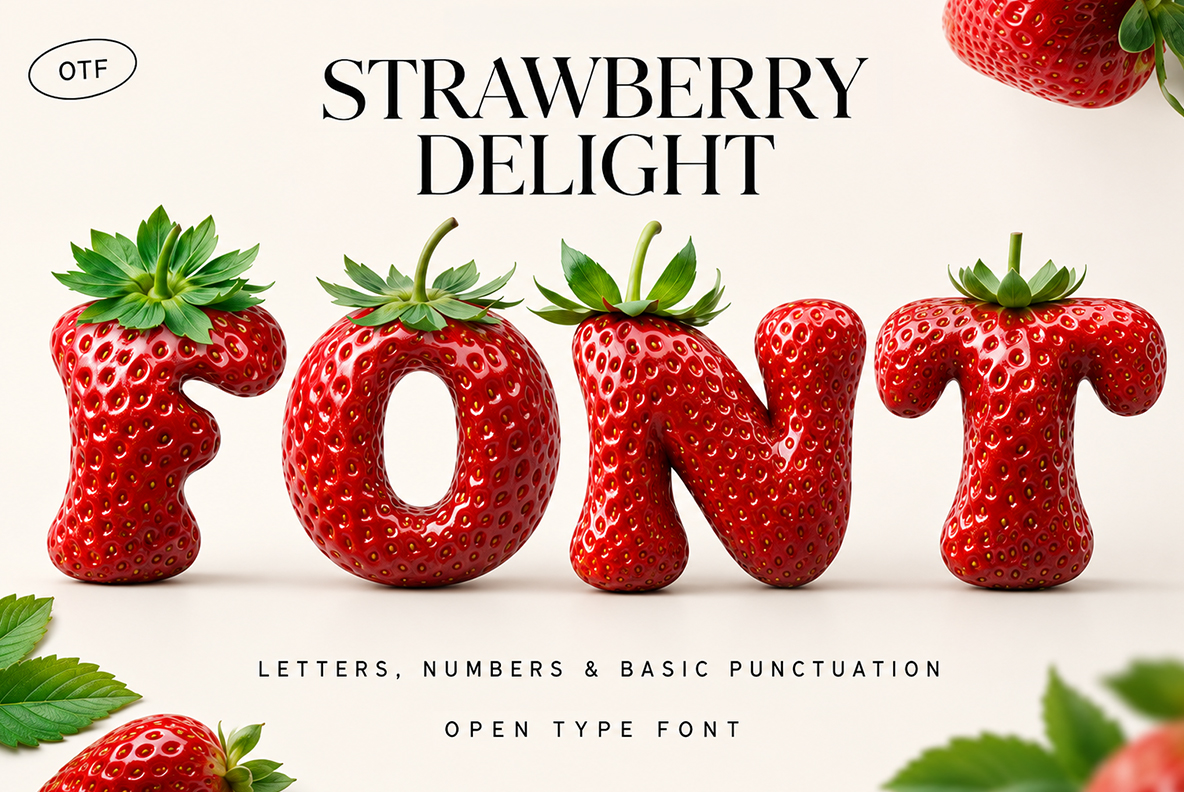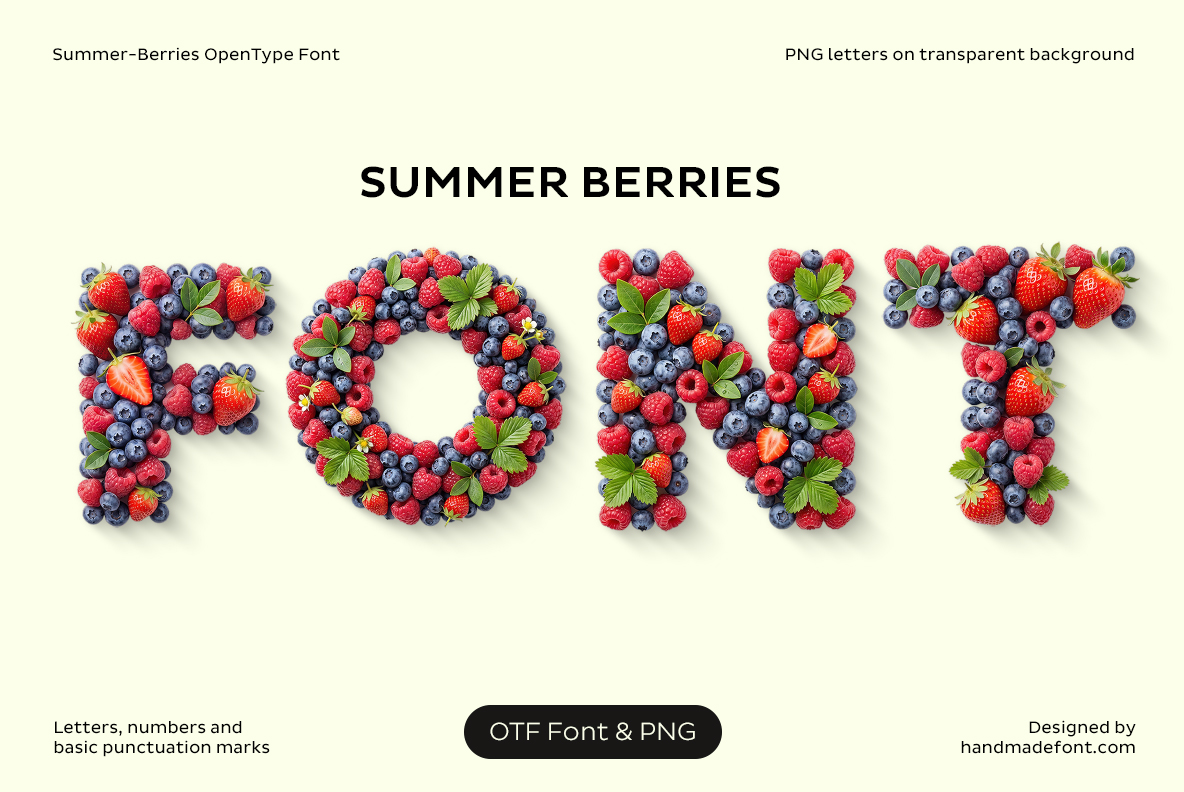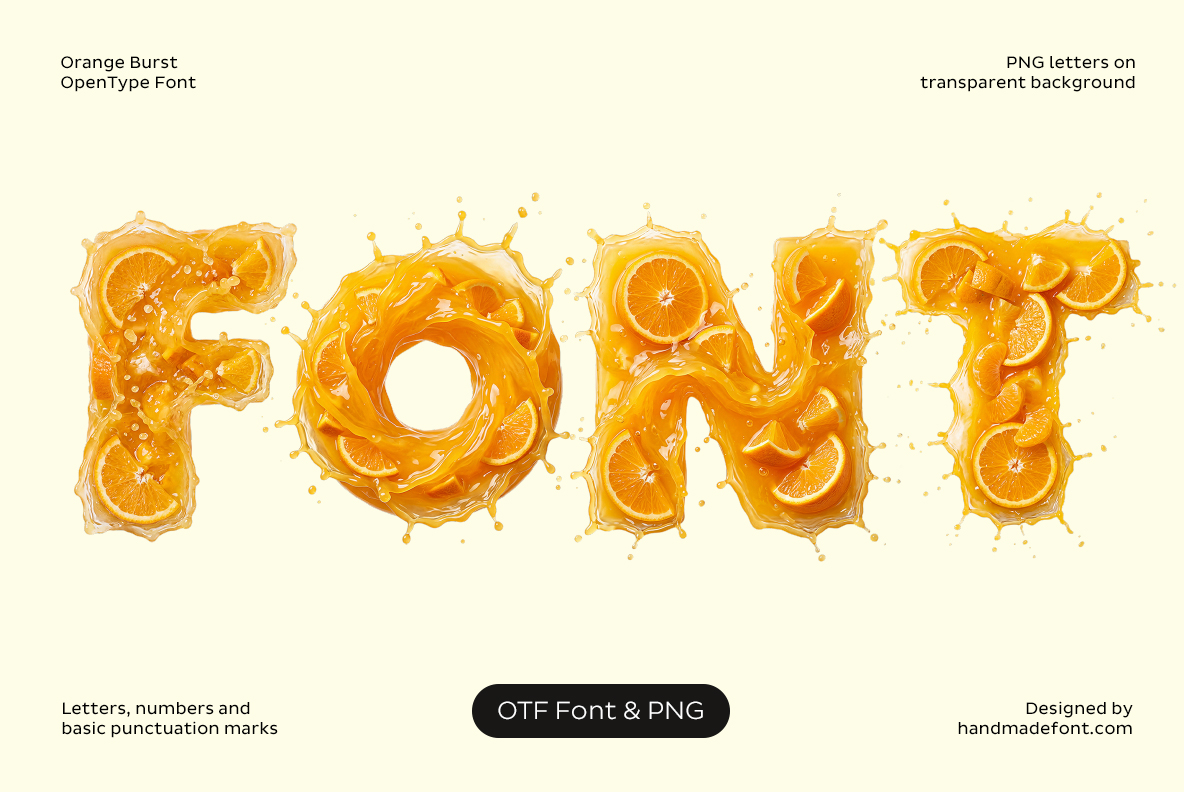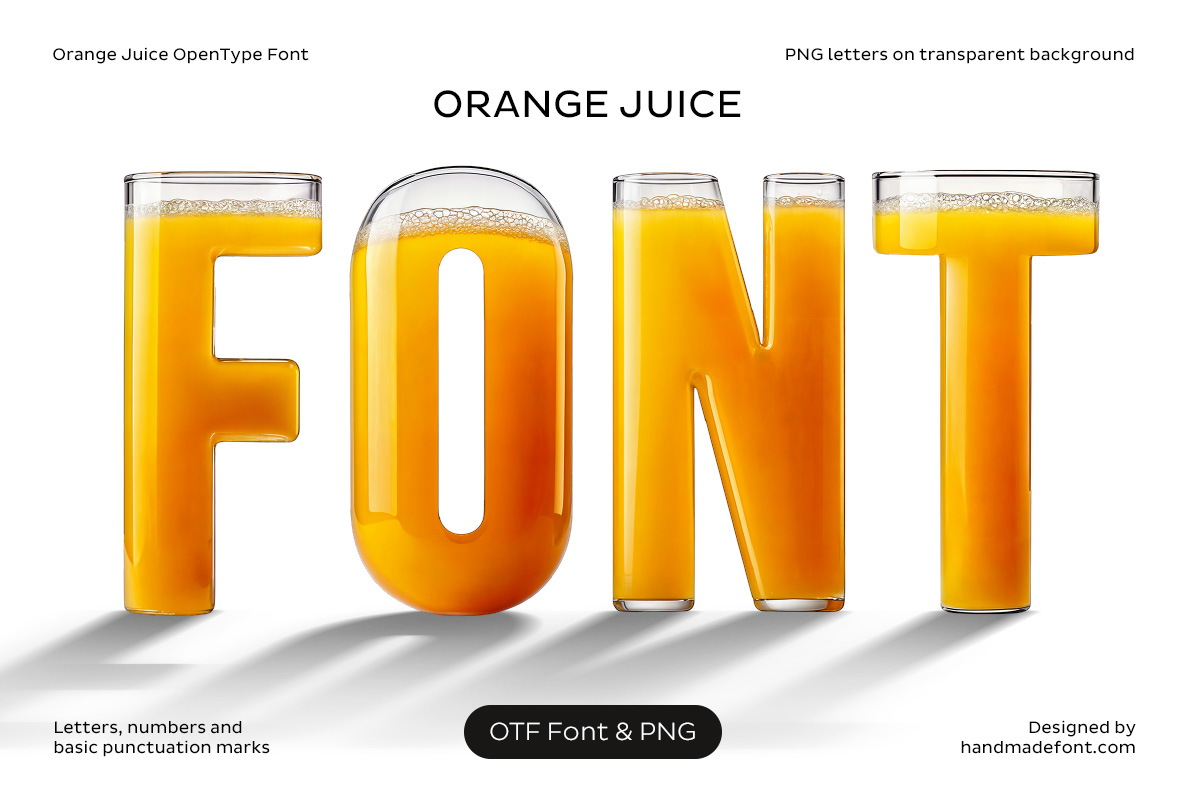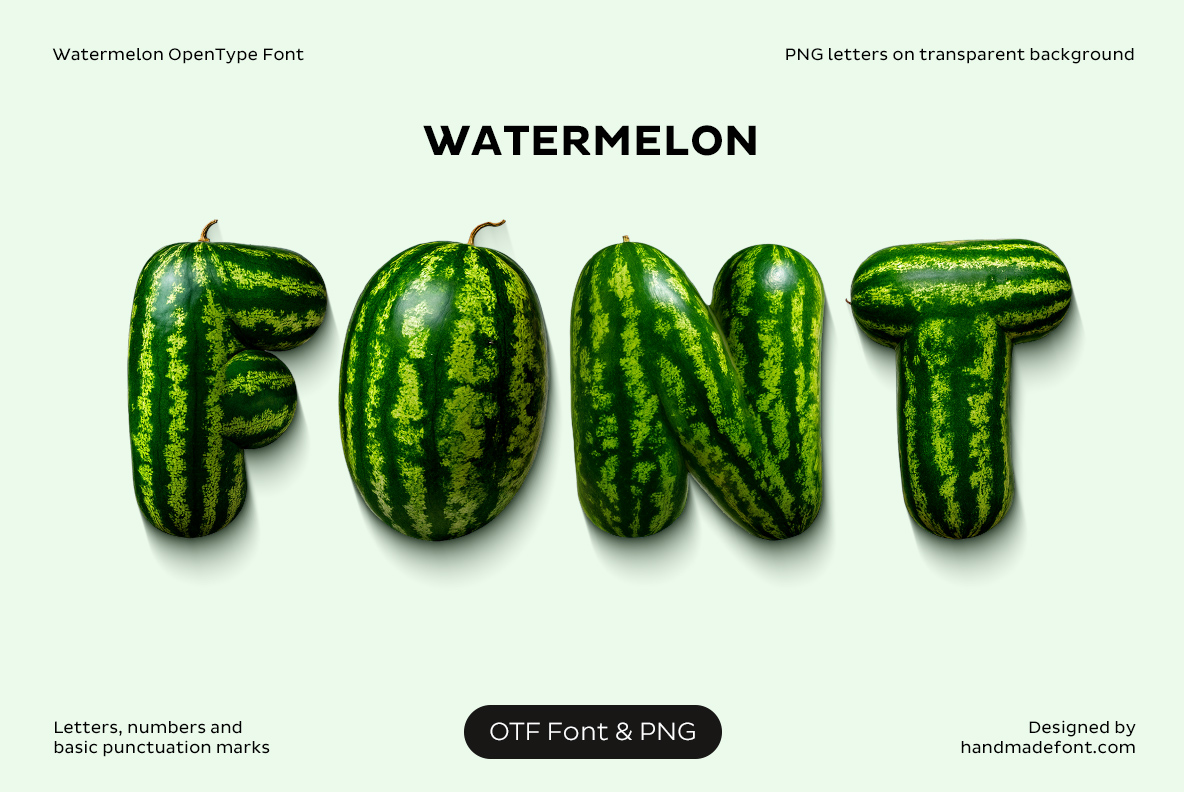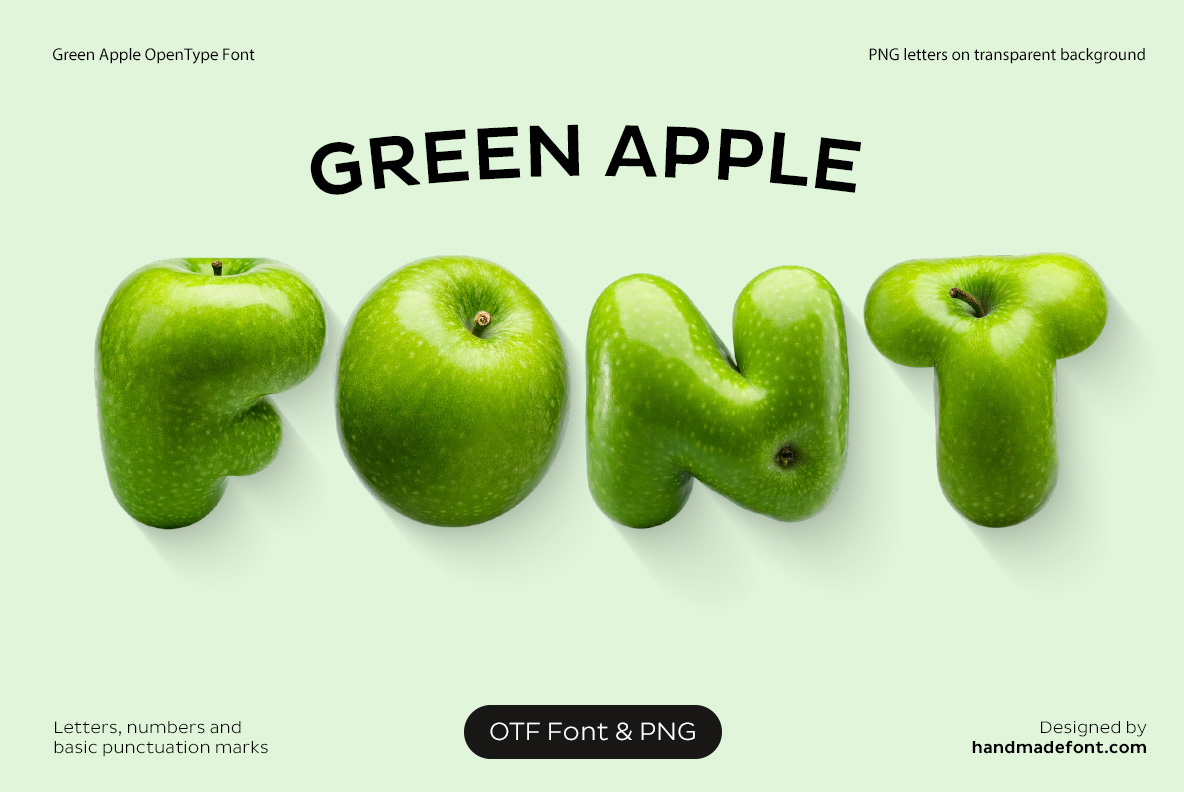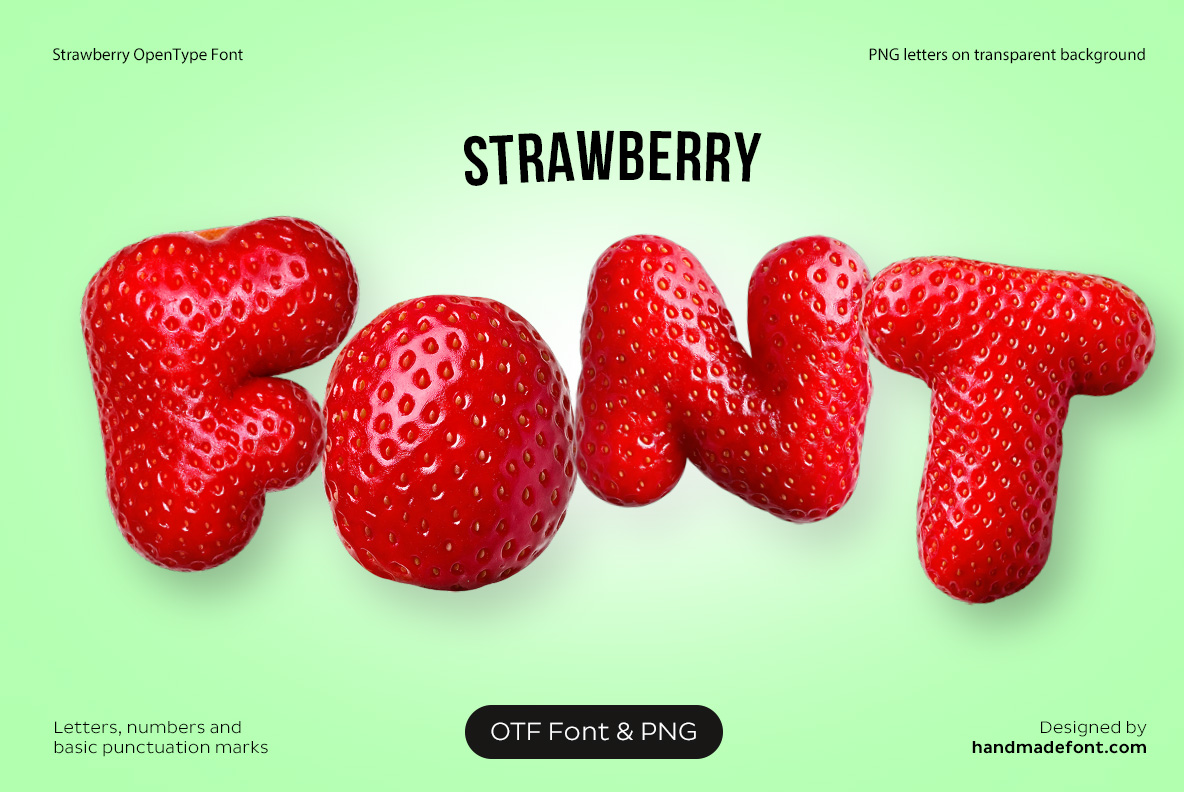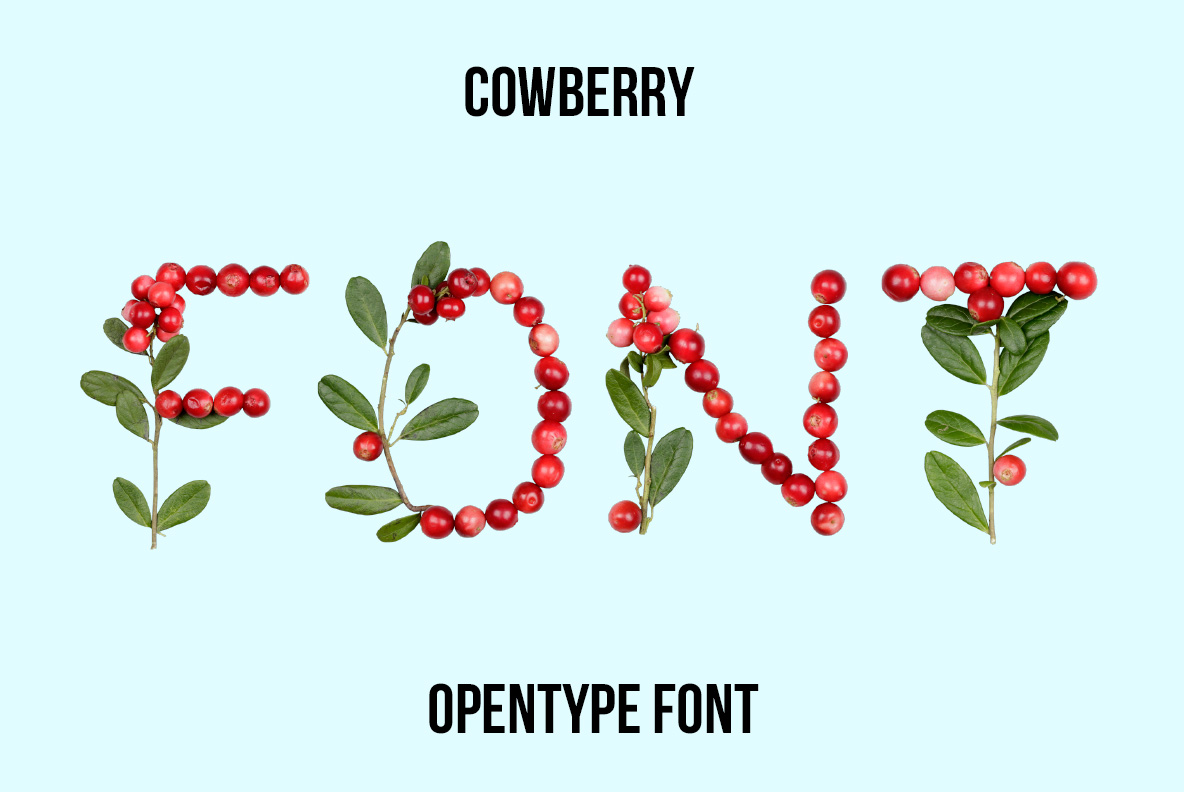
Fruit Fonts – Handmade Typography Inspired by Real Fruit
Fruit Fonts are the sweetest and by some distance the most colourful shelf in the shop. Every letter is the fruit itself — a strawberry keeps its seeds and its crown, a watermelon keeps its stripes, a raspberry is assembled drupelet by drupelet. That gives them something the drawn equivalents never have: the surface is slightly wrong in the way real fruit is slightly wrong, and that is exactly what makes it read as food.
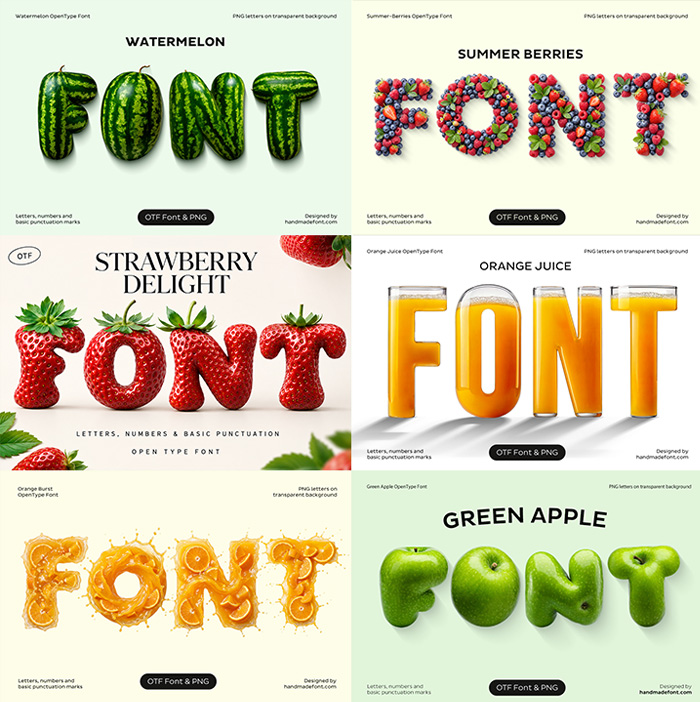
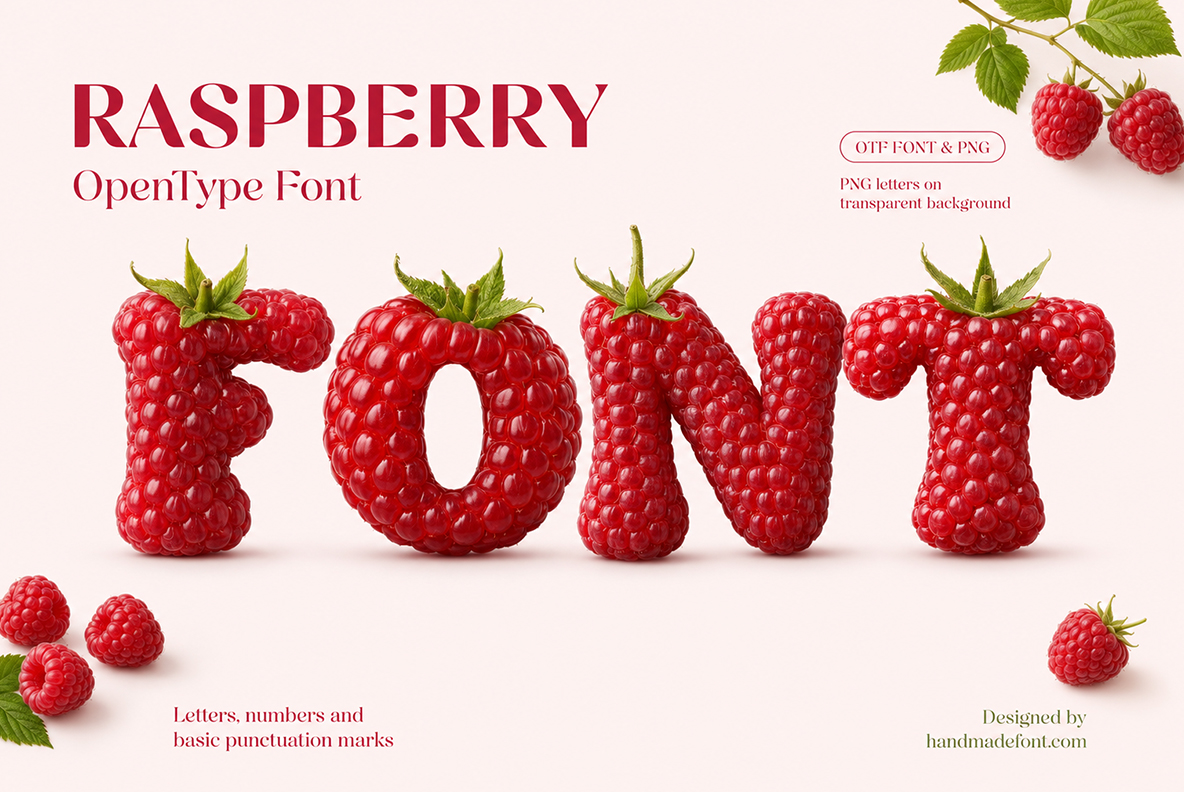Ripe, Wet and Photographed Close
Raspberry Font with handmade 3D letters created from realistic red raspberries
Raspberry Font
Raspberries, drupelet by drupelet, with the hull left on top.
Strawberry Delight Font with glossy 3D letters inspired by fresh strawberries
Strawberry Delight Font
Big glossy strawberries wearing their green crowns, seeds picked out.
Summer Berries Font with letters made from strawberries, raspberries and blueberries
Summer Berries Font
Blueberries, redcurrants and strawberries heaped together with leaves between.
Orange Burst Font with 3D letters formed from orange juice splashes and citrus slices
Orange Burst Font
Orange slices caught in a splash of juice, pith and all.
Orange Juice Font with transparent 3D letters filled with bright orange juice
Orange Juice Font
Tall glasses of juice standing in for the strokes, condensation included.
Watermelon Font with bold 3D letters shaped from realistic green watermelons
Watermelon Font
Whole striped watermelons, dark green on lighter green, skin waxy.
Green Apple Font featuring handmade 3D letters shaped from fresh green apples
Green Apple Font
Hard green apples with a wax shine and the odd brown freckle.
Strawberry Font with realistic red strawberry texture forming bold 3D letters
Strawberry Font
Strawberries pressed close on mint green, matt where the light misses them.
Cowberry Font with letters created from red cowberries, green leaves and natural branches
Cowberry Font
Lingonberries threaded along their own sprigs, small leaves still attached.
Banana Font with large handmade letters constructed from realistic yellow bananas
Banana Font
Bananas laid on a wet dark leaf, one of them half peeled.
Fruit Fonts Sell Summer, Health and Sugar
Juice, smoothie and ice-cream brands take most of them, along with yoghurt, jam and cereal packaging. Farm shops, markets and organic ranges use the whole-fruit ones. Beyond food, they are a standard tool for summer campaigns, festival graphics and anything aimed at children, where a berry alphabet does more work than an illustration. They hold colour extremely well on screen, so social and display advertising suits them.